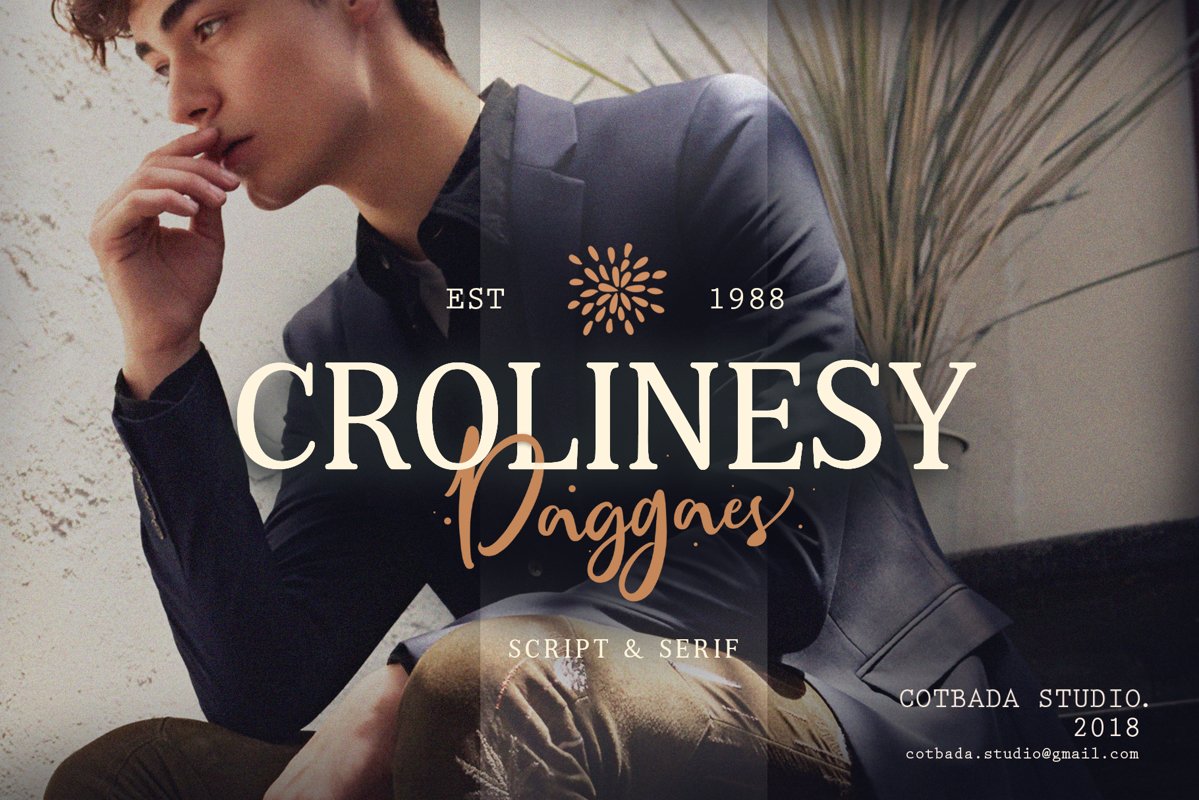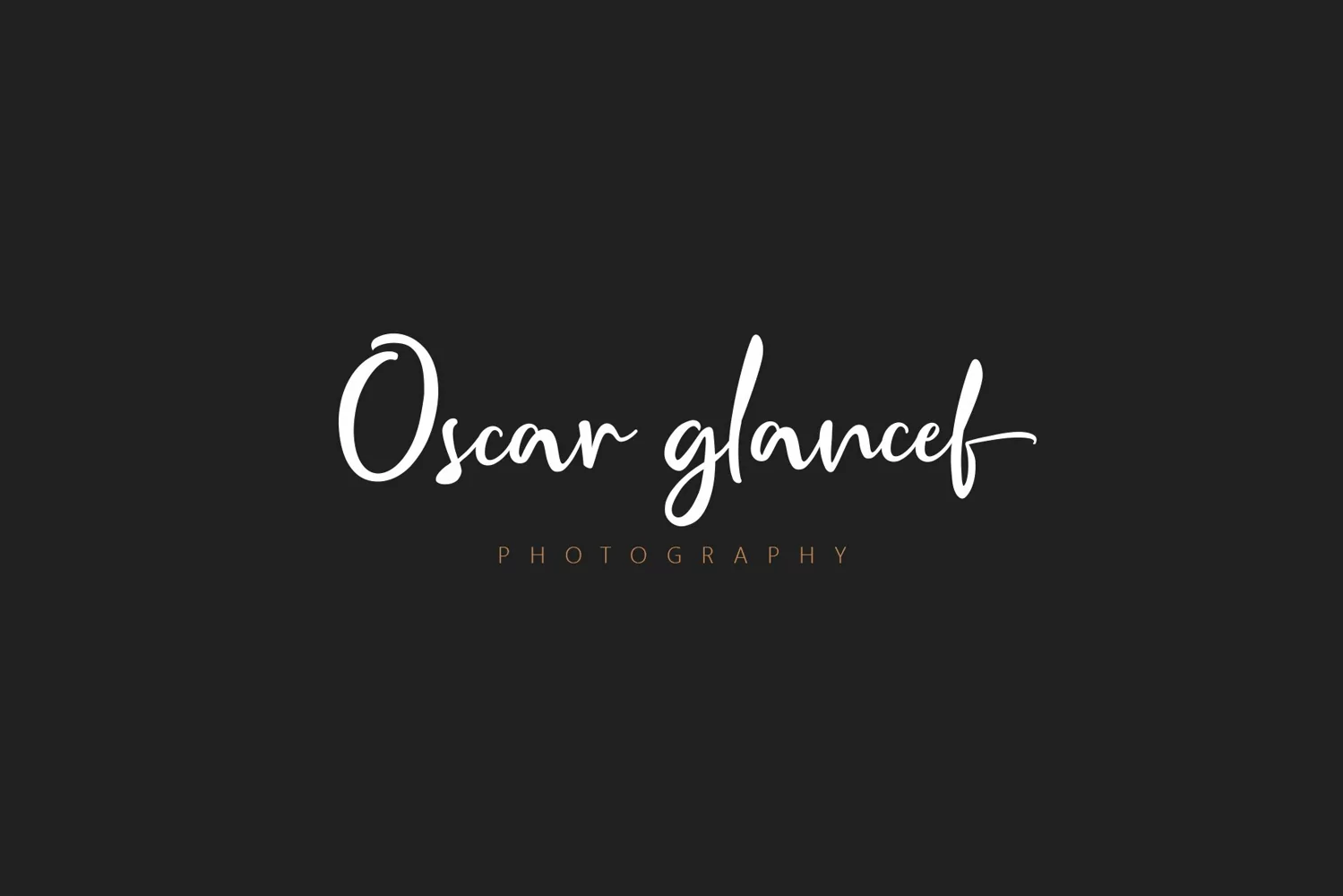
Crolinesy Daggaes Font Duo is a unique, cool and modern handwritten font. It's hand look style makes it perfect for use in all your design projects be it logos, signatures, labels, packaging design, blog headlines.